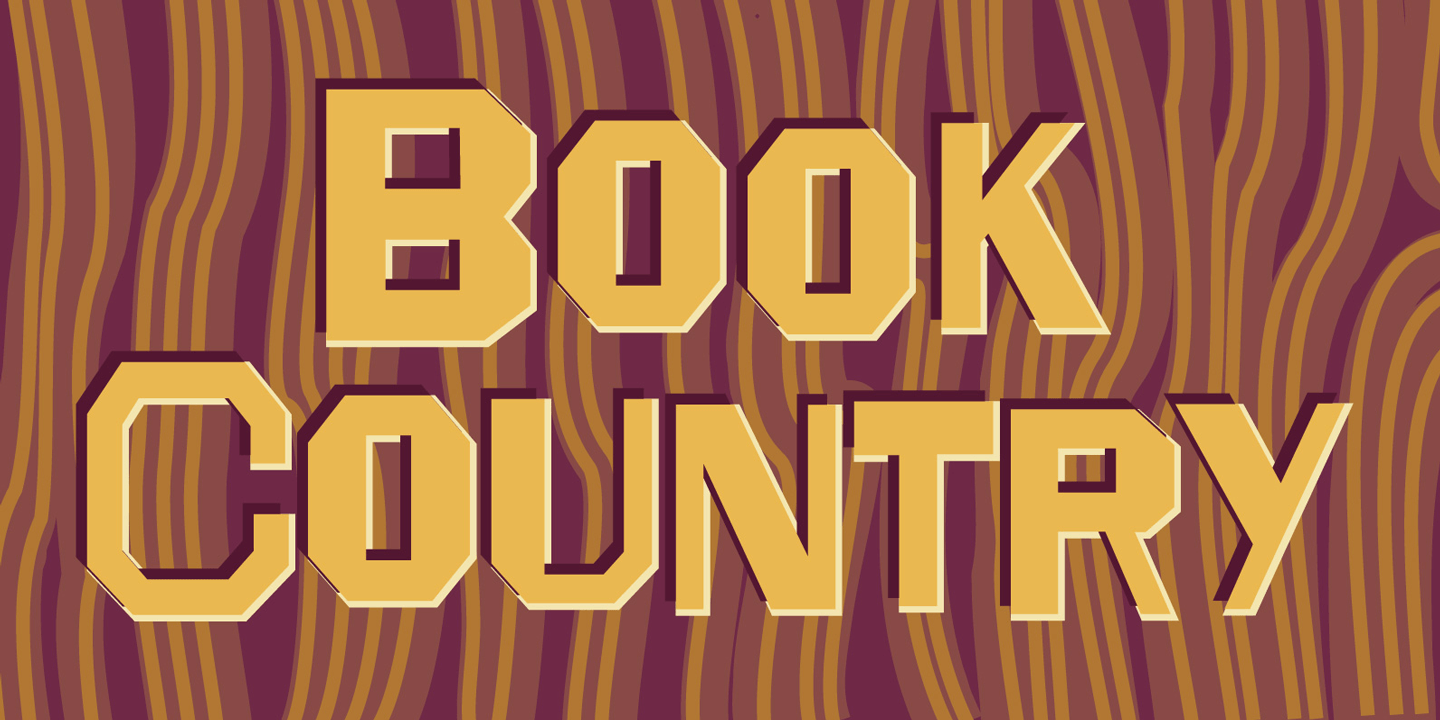
Book Country
Book Country first appeared on a poster for ?New York is Book Country? an annual literary event. It was inspired by the lettering of Ben Shahn on a poster protesting the 1927 execution of Italian radicals Nicolo Sacco and Bartolomeo Vanzetti. Though apparently naive and crudely drawn, nevertheless, the letterforms effected an urgent and powerful message.
The font includes a derived lower case and an OpenType contextual feature which maintains the rhythm of the uneven baseline when characters repeat to mitigate the stiff, mechanical feeling that occurs when casual lettering is typeset.